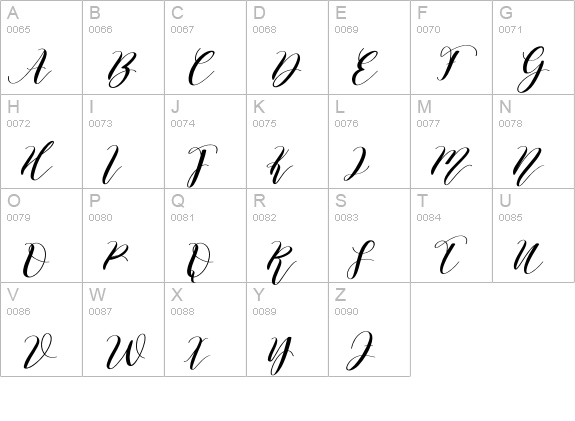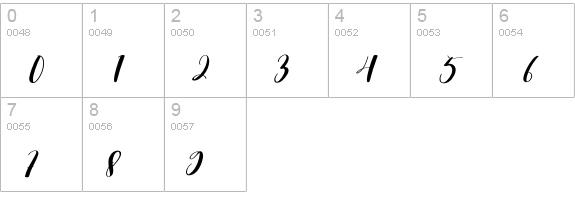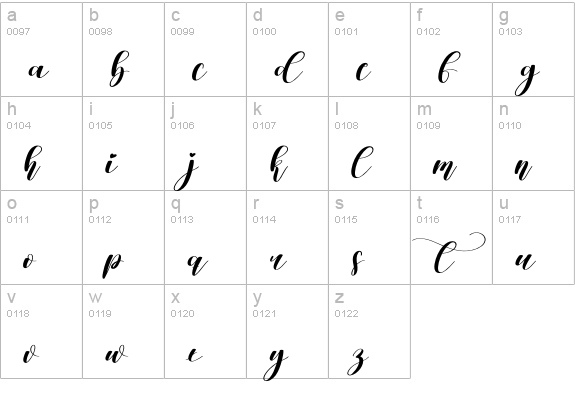
Calligraphy Font Details
Calligraphy is a free for personal use font in the Script > Handwritten category, designed by scratchones. It has been downloaded 6 times and is available for Windows, Mac and Linux.
Introducing the exquisite Calligraphy font, where elegance meets grace in every stroke. This stunning font combines the artistry of traditional calligraphy with a modern twist, creating a timeless and sophisticated appearance. With its flowing lines and intricate details, the Calligraphy font exudes a sense of luxury and refinement, making it perfect for adding a touch of class to any project.